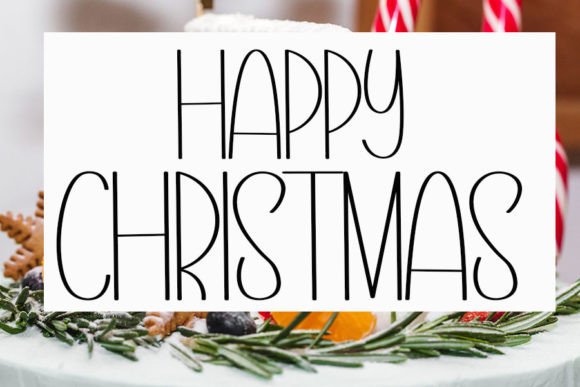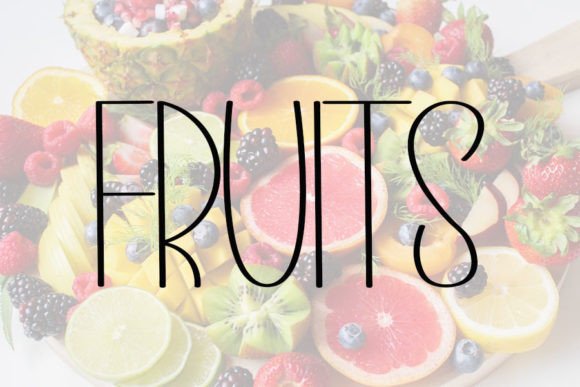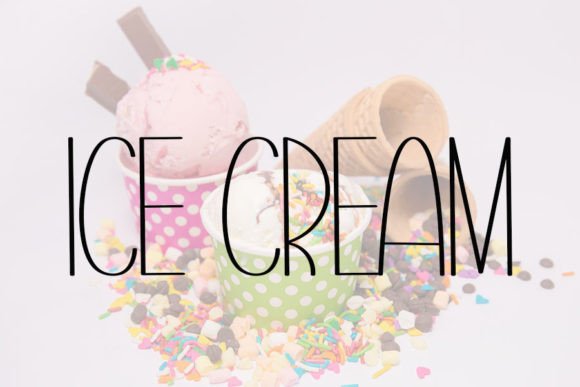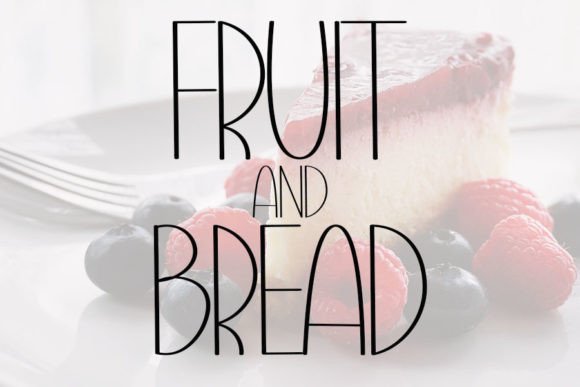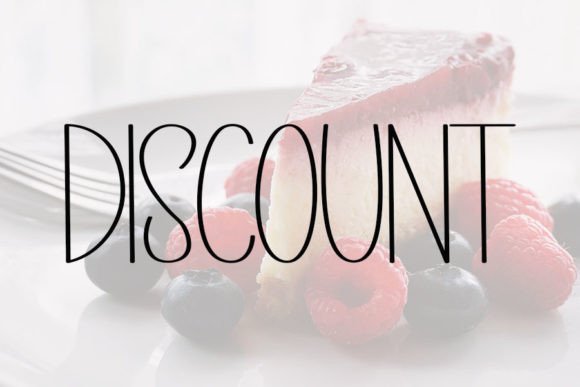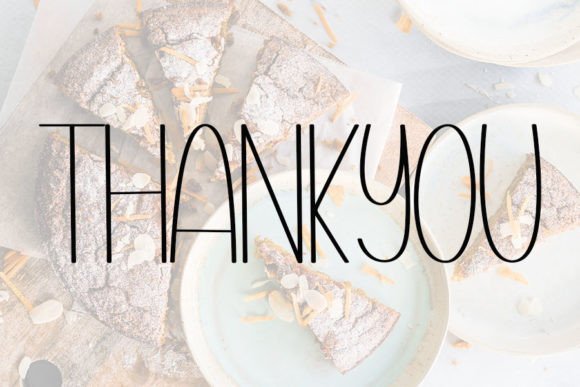
Candy Christmas Font: A Deliciously Elegant Addition to Your Design Collection
Are you looking for a font that embodies the magic of the holiday season? Look no further than the Candy Christmas Font, a stunning handwritten font that is sure to add a touch of elegance to your designs. With its unique blend of whimsy and sophistication, this font is perfect for designers and crafters who want to create spectacular designs that capture the essence of Christmas.
A Beautifully Handwritten Font
The Candy Christmas Font is a beautifully handwritten font that boasts an elegant touch, making it perfect for a wide range of design projects. From holiday cards and invitations to packaging and branding, this font is sure to add a touch of luxury and sophistication to your work. Its incredibly distinct and timeless style is sure to fall in love with, and its versatility makes it an excellent addition to any design collection.
Key Features of Candy Christmas Font
- Handwritten Elegance: The Candy Christmas Font features a beautifully handwritten style that adds a touch of elegance to any design project.
- Unique and Distinctive: With its incredibly distinct and timeless style, this font is sure to stand out from the crowd and make your designs shine.
- Perfect for Holiday Designs: The Candy Christmas Font is specifically designed with the holiday season in mind, making it perfect for Christmas cards, invitations, and other holiday-themed designs.
- Versatile and Flexible: This font can be used for a wide range of design projects, from packaging and branding to digital graphics and more.
Why Designers and Crafters Love Candy Christmas Font
Designers and crafters love the Candy Christmas Font for its unique blend of elegance and playfulness. This font is perfect for creating designs that are both sophisticated and fun, making it an excellent choice for a wide range of projects. Whether you’re creating holiday cards, invitations, or other designs, the Candy Christmas Font is sure to add a touch of magic to your work.
Tips for Using Candy Christmas Font
Here are a few tips for getting the most out of the Candy Christmas Font:
- Pair it with Other Fonts: The Candy Christmas Font pairs perfectly with other fonts, such as sans-serif fonts and script fonts. Experiment with different combinations to find the perfect look for your design.
- Use it for Headlines and Titles: The Candy Christmas Font is perfect for headlines and titles, where its elegant and distinctive style can really shine.
- Add Some Holiday Cheer: Use the Candy Christmas Font to add some holiday cheer to your designs. Whether you’re creating holiday cards, invitations, or other designs, this font is sure to get you in the holiday spirit.
In conclusion, the Candy Christmas Font is a deliciously elegant addition to any design collection. With its beautifully handwritten style, unique and distinctive look, and versatility, this font is perfect for designers and crafters who want to create spectacular designs that capture the essence of Christmas. Whether you’re creating holiday cards, invitations, or other designs, the Candy Christmas Font is sure to add a touch of magic to your work.